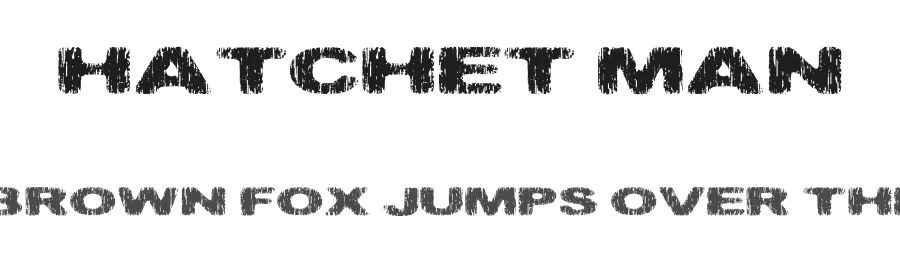
About AlienFur Font
Alien Fur! AlienFur! A creepy furry fuzzy tech font!
AlienFur Font is a decorative font that shines as a display or heading face. Pair it with a clean sans-serif or serif font for body text β the contrast creates a clear hierarchy while the two styles stay balanced and easy to read.